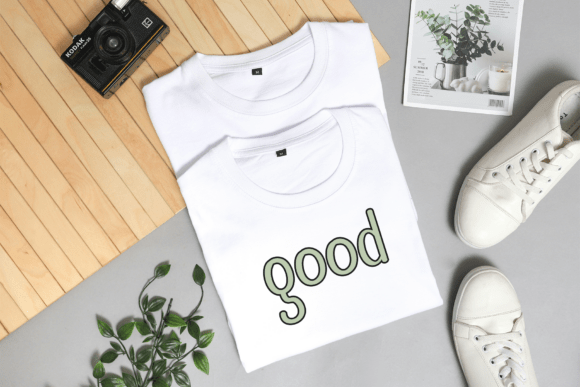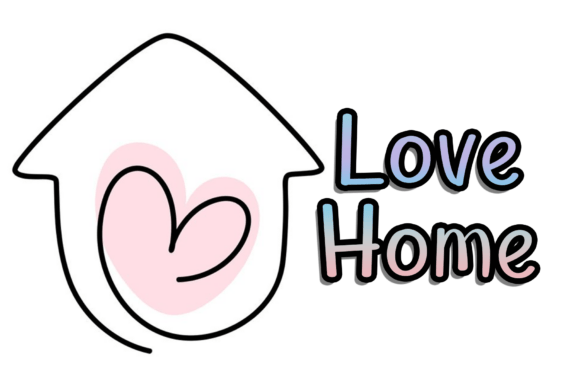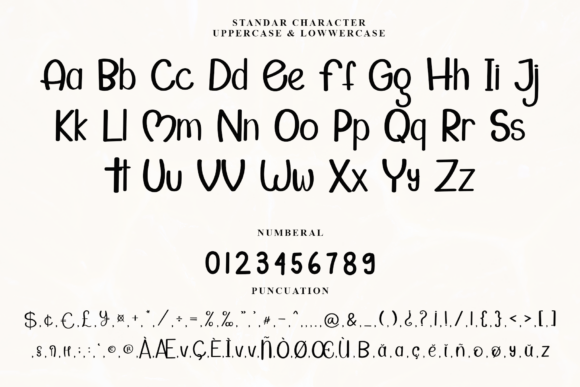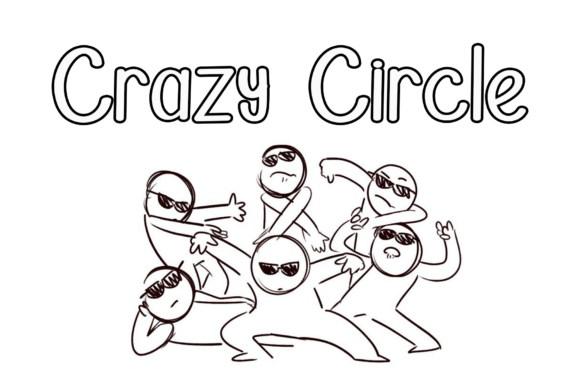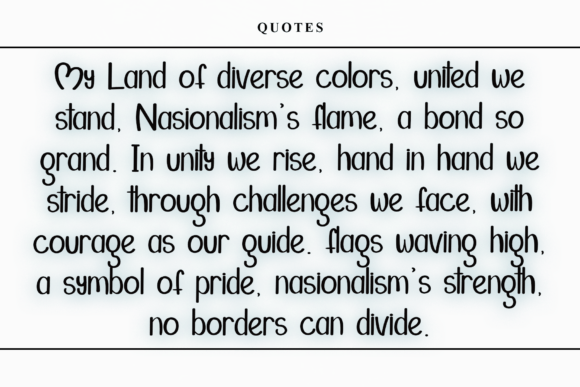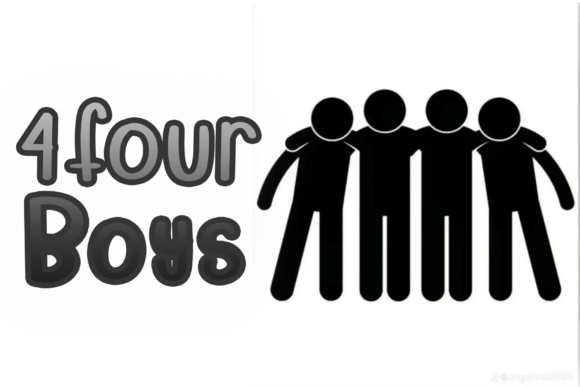
The Perfect Script for Your Next Masterpiece
There’s nothing quite like the rush of creative energy that comes with starting a new design project. You’re envisioning the perfect typography, the perfect color palette, and the perfect style to bring your vision to life. For many designers, the perfect script is the key to unlocking that special something that sets their work apart from the rest.
That’s where House Font comes in – a trendy handwritten font that exudes a contemporary atmosphere and impeccable form. Inspired by timeless classic calligraphy, House Font is the perfect addition to any design project looking to add a touch of elegance and class. Whether you’re working on a logo, a branding campaign, or a social media graphic, House Font is the perfect script to elevate your design game.
House Font Key Features
- Font Family: House Font is a sans-serif typeface, ideal for digital and print media.
- Font Size: Designed to be highly legible at various sizes, from 8pt to 24pt, making it suitable for body text, headings, and titles.
- Resolution: Optimized for both screen and print resolutions, ensuring crisp and clear rendering at 72 dpi (dots per inch) and 300 dpi.
- Unique Characteristics: House Font features a clean, modern design with subtle rounded edges and a neutral tone, making it highly versatile for various design applications.
- Language Support: Supports a wide range of languages, including Latin, Cyrillic, and Greek scripts, making it suitable for global branding and design projects.
House Font Review
Overall, I found the House Font to be a solid, if not spectacular addition to my design toolkit. Here’s what I think:
- House Font has a friendly, approachable feel that’s perfect for body copy and text-based designs.
- The font is highly legible, even at small sizes, making it a great choice for digital interfaces.
- It’s a versatile font that works well for both modern and traditional designs.
- House Font lacks a strong personality or unique flair, which might make it feel forgettable in certain contexts.
- While it’s highly legible, the font can feel a bit bland or unremarkable in certain situations.
- There are limited styles or variations available, which might limit its use in more creative or experimental designs.
Overall, I’d give the House Font 3.5 out of 5 stars. It’s a solid, dependable choice for many design projects, but it might not stand out in more competitive or innovative contexts. Still, it’s a great addition to any designer’s toolkit, and I’d definitely recommend it for everyday use.
House Font is commonly used for:
- Displaying headings and titles.
- Creating a distinctive brand identity.
- Adding a touch of sophistication to digital designs.
For optimal results, use House Font in conjunction with other design elements that complement its unique style.